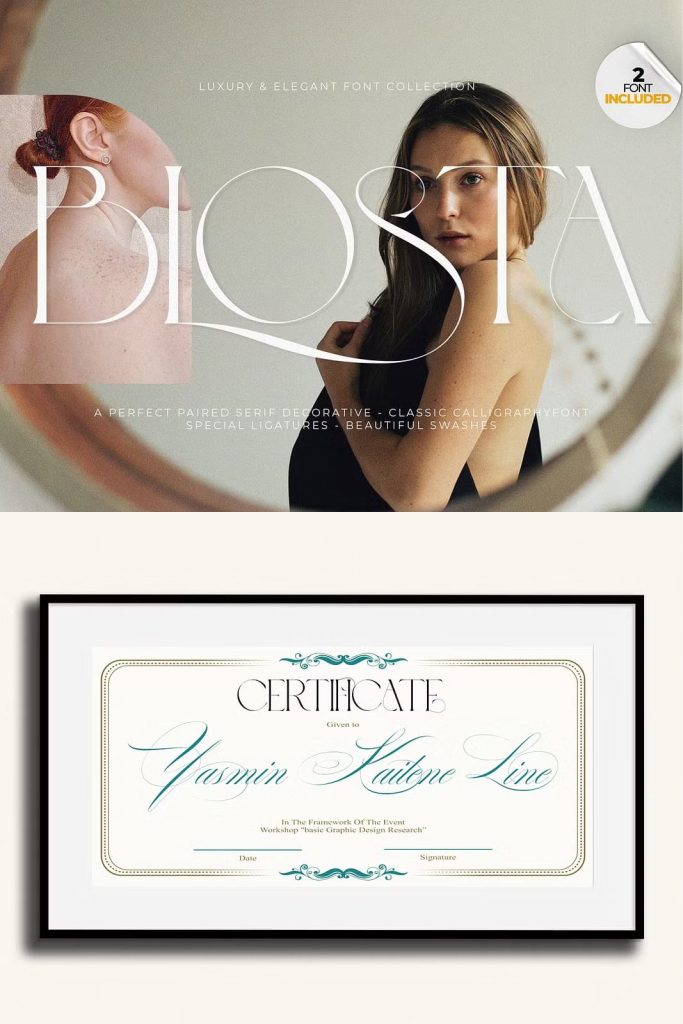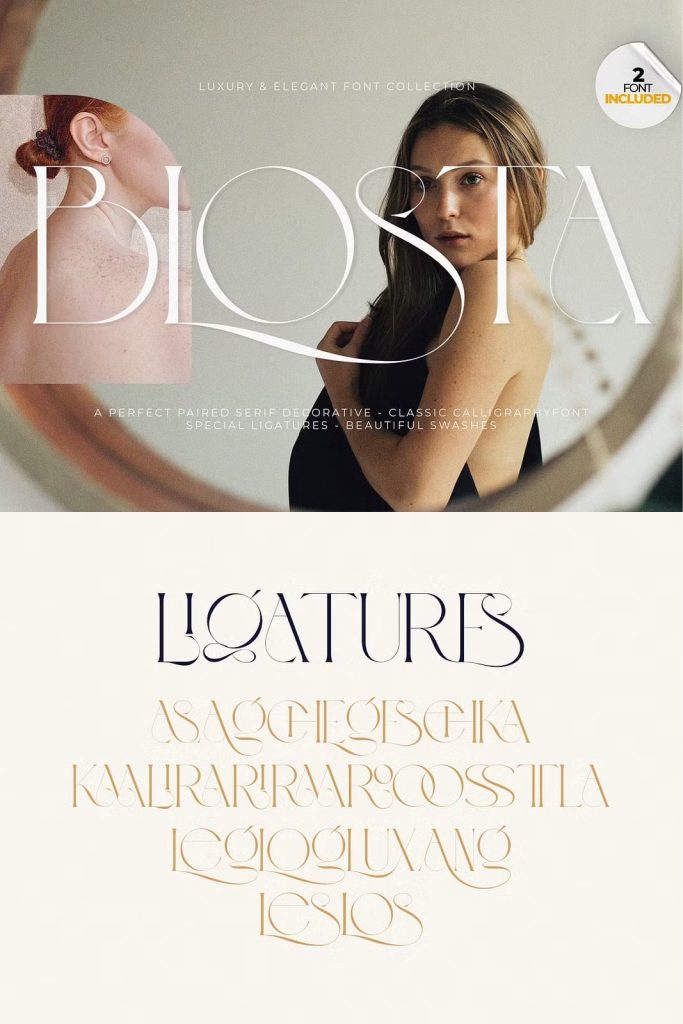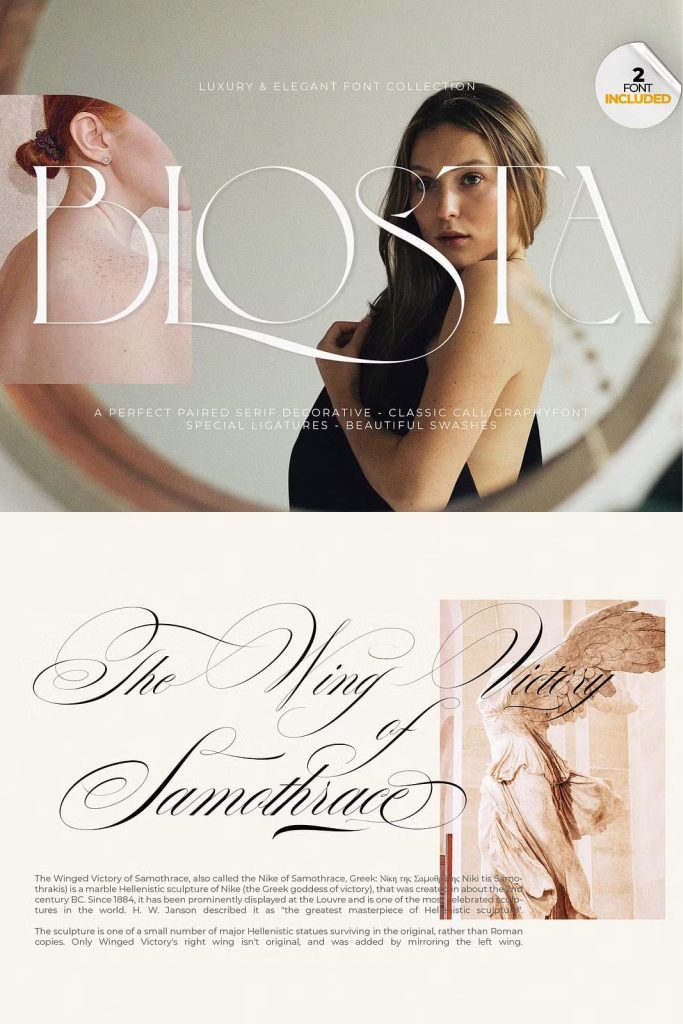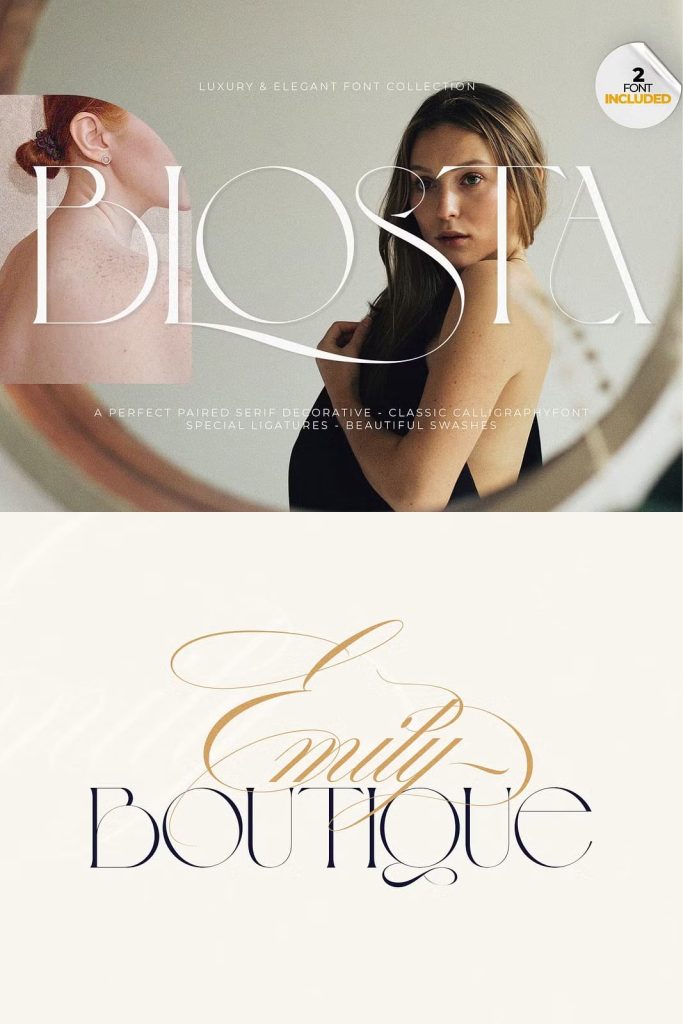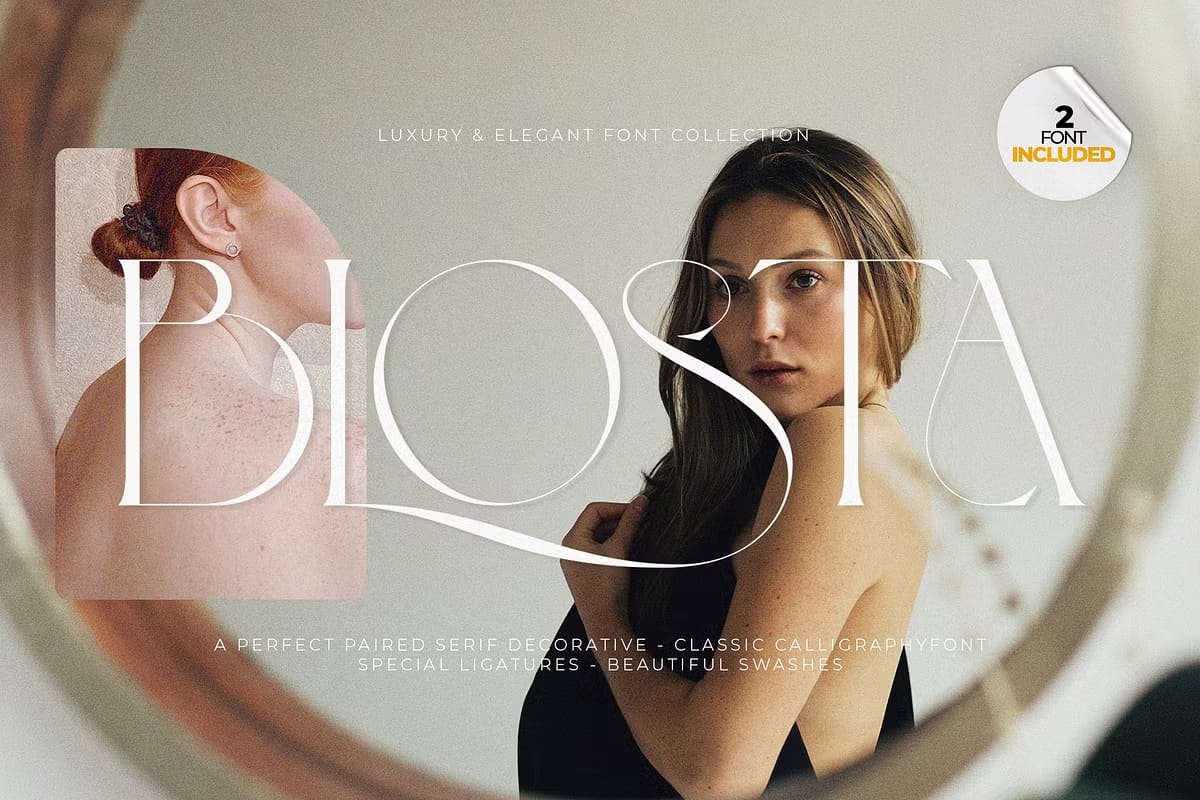
Blosta Font Duo: Luxury Serif and Calligraphy Typeface
Blosta Font Duo delivers a luxurious and elegant font pairing that transforms ordinary designs into refined visual statements. This carefully crafted duo combines a decorative serif typeface with a graceful calligraphy script, giving designers the power to create stylish and modern compositions. With its trendy appearance and versatile features, Blosta Font Duo helps you build designs that feel premium, unique, and visually engaging.
A Sophisticated Blend of Serif and Calligraphy
Blosta Font Duo merges two complementary styles into one cohesive package. The serif decorative font provides structure, clarity, and a strong visual foundation. Its detailed letterforms and elegant shapes create a sense of sophistication that works well in high-end design projects.
The calligraphy typeface adds fluidity and personality. Its flowing strokes and natural curves introduce a human touch that balances the precision of the serif. Together, these styles create a harmonious contrast that enhances readability while adding artistic flair.
Designed for Modern and Trendy Aesthetics
Blosta Font Duo embraces current design trends while maintaining timeless appeal. Its modern look allows you to create designs that feel fresh and relevant, while its elegant details ensure long-lasting value. Whether you design for digital platforms or print materials, this font duo adapts effortlessly to different creative environments.
The combination of clean structure and expressive script gives you the flexibility to experiment with layouts, typography hierarchy, and visual storytelling. You can easily create bold headlines, delicate accents, and balanced compositions using a single font pair.
Core Features of Blosta Font Duo
- Decorative serif typeface with elegant detailing
- Calligraphy script with smooth and natural strokes
- Trending ligatures for stylish typography
- Special characters to enhance creative flexibility
- Versatile pairing suitable for various design styles
Enhance Branding and Visual Identity
Blosta Font Duo works exceptionally well in branding projects that require a luxurious and distinctive look. Use the serif font to establish a strong brand presence through logos, headlines, and titles. Pair it with the calligraphy script to add a signature-style element that feels personal and elegant.
This font duo allows you to create a cohesive identity without searching for additional typefaces. Its built-in compatibility ensures that every element of your design aligns perfectly, resulting in a polished and professional outcome.
Popular Branding Applications
- Luxury logo design with refined typography
- Brand identity systems with consistent visual language
- Product packaging that communicates quality and style
- Marketing materials that stand out with elegance
Perfect for Creative and Editorial Projects
Blosta Font Duo adapts seamlessly to a wide range of creative applications. In editorial design, it enhances layouts with its combination of strong serif headlines and expressive script accents. Designers can use it to create magazines, brochures, and promotional materials that feel both modern and sophisticated.
In digital design, this font duo elevates websites, social media graphics, and online campaigns. Its clean and stylish appearance ensures readability while maintaining a visually appealing aesthetic. This makes it an excellent choice for designers who want to create engaging and memorable content.
Flexible Pairing with Other Fonts
One of the key strengths of Blosta Font Duo is its ability to pair well with other typefaces. While it already provides a complete solution, you can easily combine it with additional fonts to expand your design possibilities. Its balanced design ensures that it integrates smoothly into different typographic systems.
This flexibility allows you to experiment with various styles while maintaining a cohesive look. Whether you prefer minimal layouts or complex compositions, Blosta Font Duo adapts to your creative vision.
Why Choose Blosta Font Duo?
Blosta Font Duo stands out as a versatile and elegant font pairing that meets the demands of modern design. It combines luxury, functionality, and creativity into one powerful tool. Its decorative serif and calligraphy script work together to create designs that feel both structured and expressive.
If you want a font duo that delivers style, flexibility, and professional quality, Blosta Font Duo offers the perfect solution. It helps you craft visually compelling designs that capture attention and communicate your message with confidence and sophistication.